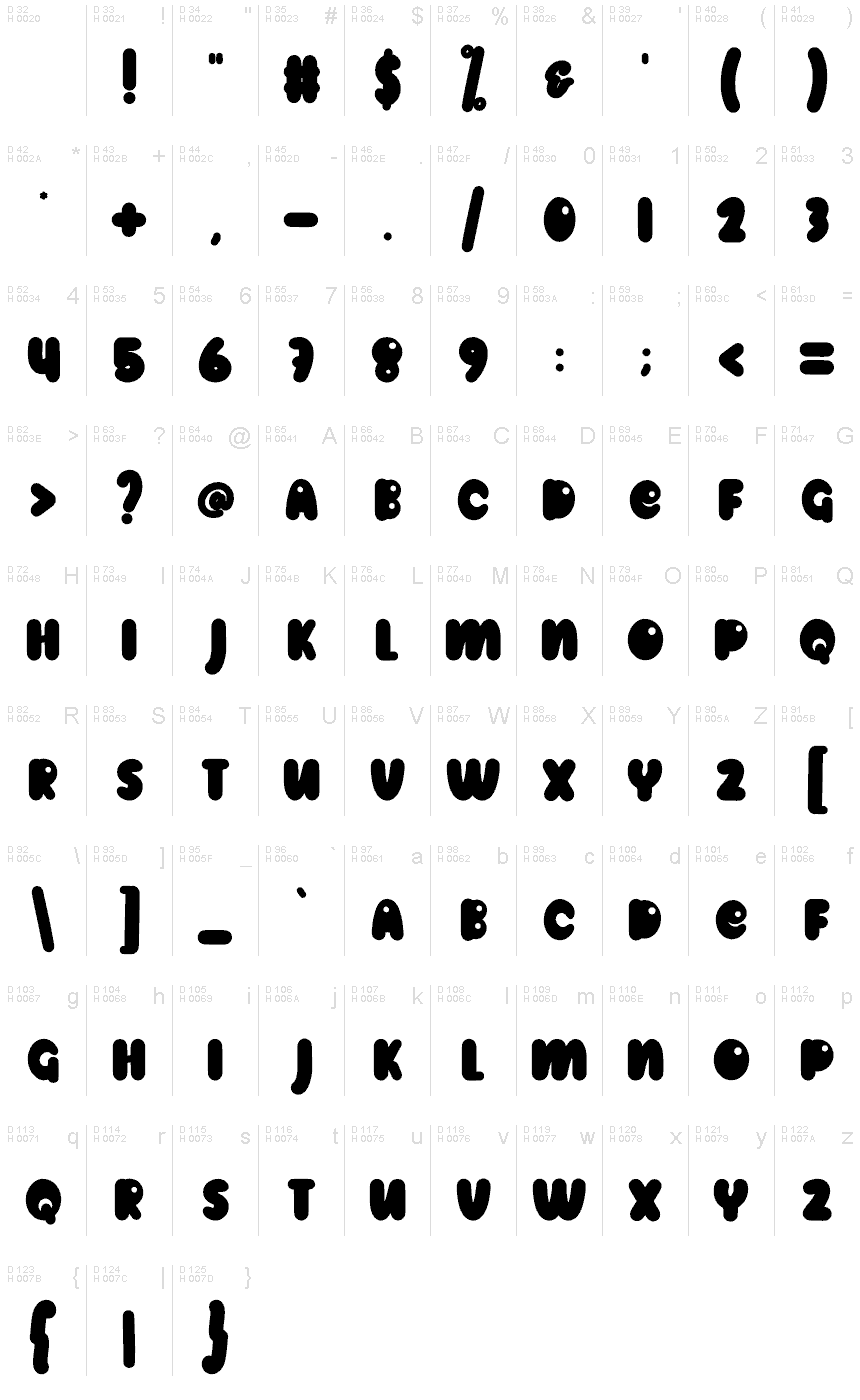
Roopey
Roopey font by Skiiller Studio is a bold cartoon display font. This character set has smooth rounded edges, modern geometric feel, and slight retro influences. Being almost completely rounded, the free handwritten font looks soft and friendly while keeping a playful appearance.
Books can be judged by their covers if they’re in Roopey font along with adorable packaging ideas as well as posters. Even logos will work suitably for businesses with clients who are looking to completely transform their identity. Websites will almost always look higher-quality in general when brands agree on this typeface that works well on the web too!